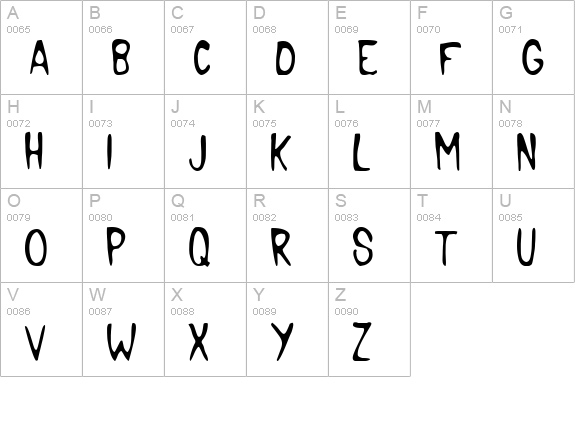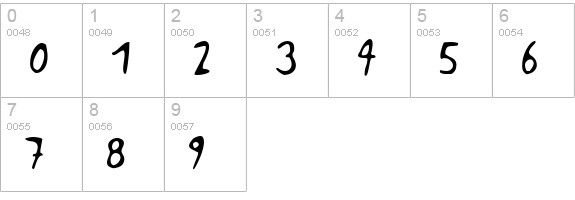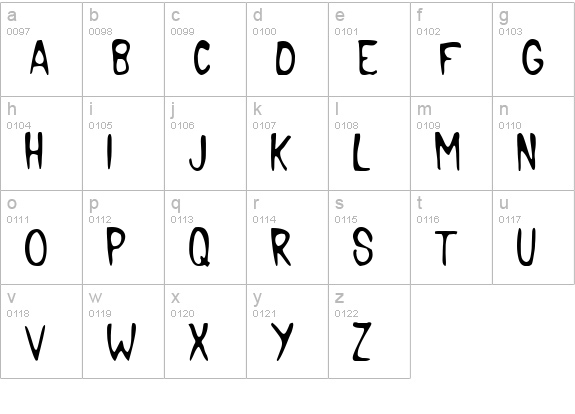
Pocket Monster font is a playful and energetic typeface designed to bring a touch of whimsy to your projects. With its rounded edges and charming design, this font captures the spirit of the beloved monster-catching game. Perfect for adding a fun and friendly vibe to invitations, posters, and social media graphics, Pocket Monster font is sure to make your text stand out. Best of all, Pocket Monster font is available for free download at FontsMarket.com. Simply visit the website and start using this delightful font in your creative projects today. Whether you're a fan of the game or just looking to add a bit of character to your designs, Pocket Monster font is a fantastic choice that won't cost you a thing. Download it now and let your creativity run wild!